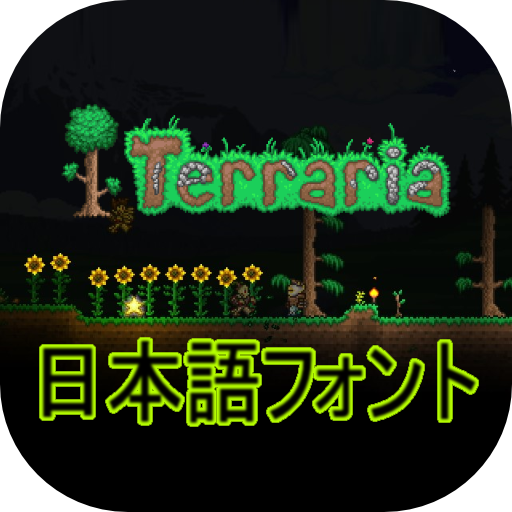
Japanese Font Pack
Elevate Your Terraria Experience with a Japanese Font Makeover
Tired of the default font in Terraria? If you’re looking to add a touch of Japanese aesthetic to your gameplay, this mod is exactly what you need. It’s a simple yet impactful modification designed to completely change the Japanese font used within the game, offering a fresh visual experience for players.
Introducing the Japanese Font Pack
This mod specifically replaces the standard Japanese font with the elegant “Penzhi version Y.OzFont,” a popular choice often utilized in Japanese translation mods for Terraria. This font brings a distinct, calligraphic style that can significantly enhance the game’s atmosphere, especially if you’re playing with Japanese language assets or simply appreciate its unique design.
Key Features and Benefits
- Font Replacement: Seamlessly swaps the default Japanese font for the stylish “Penzhi version Y.OzFont.”
- Enhanced Aesthetics: Adds a unique visual flair to your Terraria interface, making menus and text more engaging.
- Standalone Functionality: This mod provides only the font; it does not include any translation data.